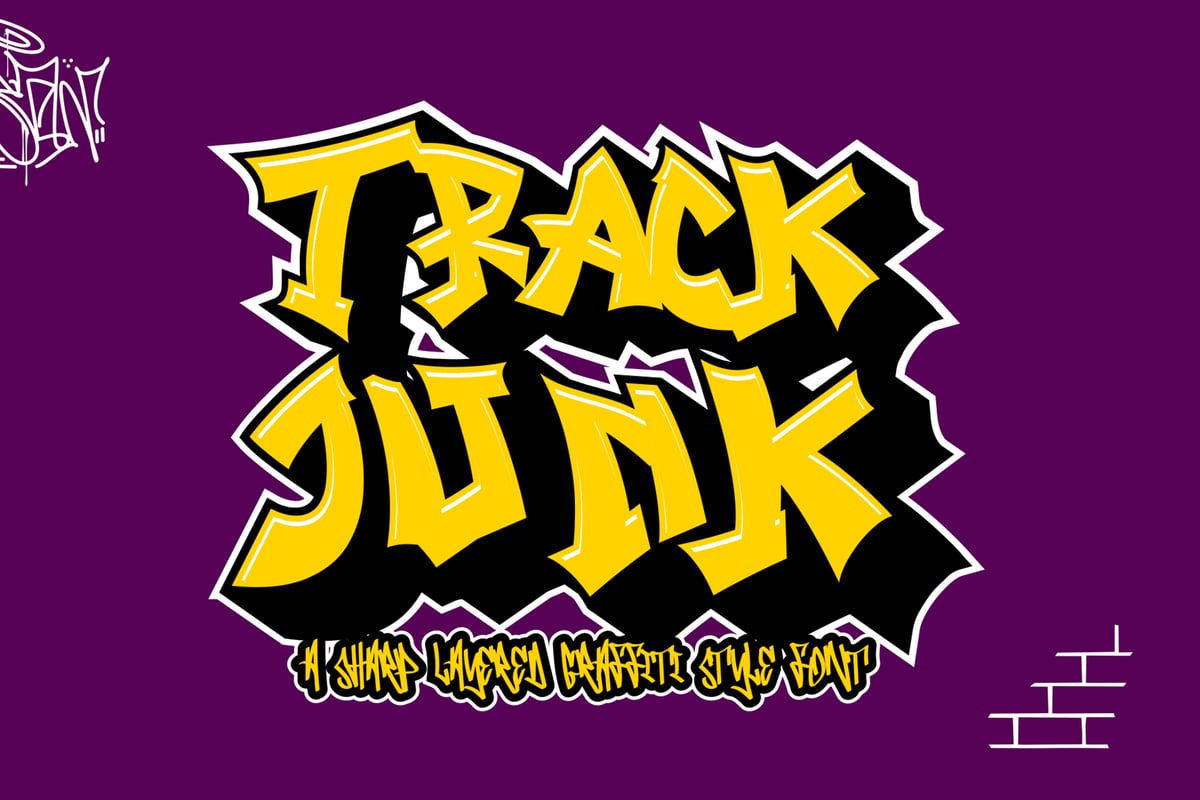
Track Junk Extrude
Track Junk is a bold, sharp, and edgy layered graffiti font that brings a raw urban attitude to any project. Its striking letterforms and layered design offer depth and texture, making it perfect for designers looking to create a streetwise, eye-catching aesthetic.